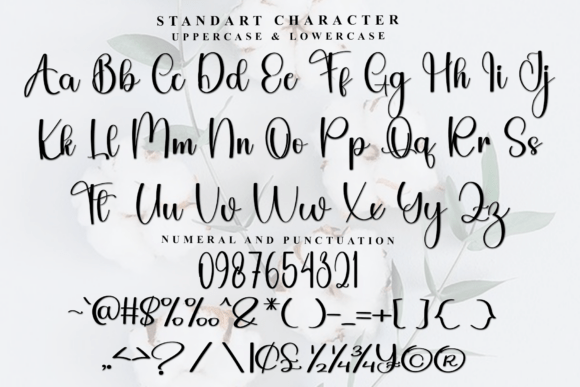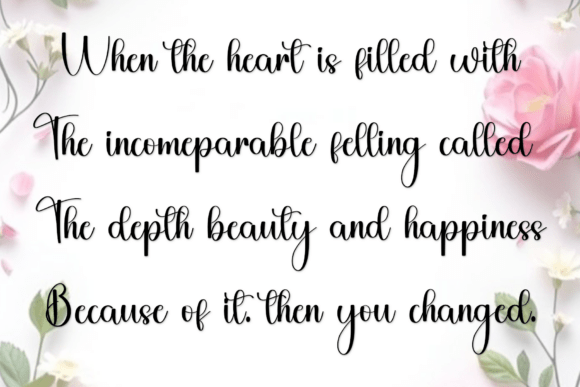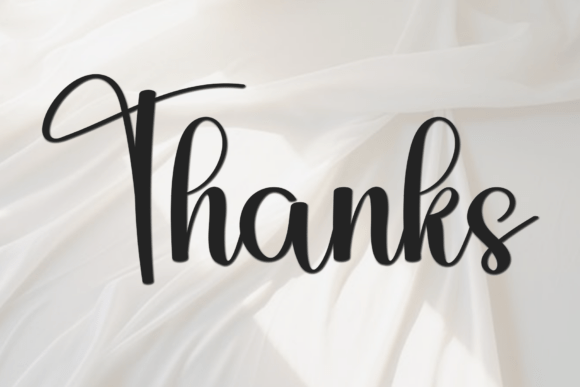
The Font that Brings a Personal Touch
We’ve all been there – staring at a blank page, trying to come up with the perfect design to capture the essence of our creative vision. But sometimes, it’s not about the tools we use, but about the emotions we evoke. And that’s exactly what Grandma Thinking Font is all about – bringing a personal and stylish feel to any project.
This beautiful handwritten script font is more than just a design element; it’s a way to connect with your audience on a deeper level. With its fluid strokes and natural curves, it mimics the warmth and character of real handwriting, making it perfect for branding, wedding invites, quotes, and lifestyle blog graphics. For designers, Grandma Thinking Font is a valuable addition to their toolkit, offering a unique and elegant solution to create heartfelt and visually appealing designs.
Grandma Thinking Font Key Features
- Font Family: A unique, hand-drawn font designed to evoke a sense of nostalgia and whimsy.
- Unique Characteristics: Features a distinctive, handwritten style with subtle imperfections and variations, giving it a personal and charming feel.
Review of Grandma Thinking Font
Overall, I think the Grandma Thinking Font is a sweet and quirky addition to any design project. Here’s what works well:
- ✨ The font’s playful and whimsical feel is perfect for projects that need a touch of nostalgia and warmth.
- ✨ The font’s readability is excellent, even at smaller sizes, making it a great choice for body text.
- ✨ The font’s unique character set and ligatures add a lot of personality to any design.
- ⚠️ The font’s design can be a bit too busy for some projects, making it harder to read or focus on other design elements.
- ⚠️ The font’s lack of a bold weight can make it harder to use in certain contexts, such as headings or titles.
Overall, I think the Grandma Thinking Font is a great choice for designers who want to add a touch of personality to their projects. While it may not be suitable for every project, it’s a great addition to any designer’s toolkit.
Getting the Most Out of Grandma Thinking Font
For best results:
- Use in conjunction with bold or italic text for emphasis.
- Combine with colorful graphics and images for a playful look.
Grandma Thinking Font is perfect for:
- Quirky marketing materials and social media graphics.
- Personalized party invitations and decorations.
- Fun and playful blog posts and articles.
Alternatives to Grandma Thinking Font
Bad Script
Bad Script is a cursive script font that mimics handwriting. It is ideal for use in titles, headings, and quotes that require a personal touch. It compares to Grandma Thinking Font in that both fonts have a casual, handwritten feel, but Bad Script is more uniform and less whimsical.
Great Vibes is a modern, cursive script font that is perfect for use in titles, headings, and body text. It is ideal for designs that require a sense of elegance and sophistication. Great Vibes is more refined and polished than Grandma Thinking Font, making it a better choice for formal designs.
Carolyna Pro is a modern, script font that is designed for use in titles, headings, and body text. It is ideal for designs that require a sense of sophistication and elegance. Carolyna Pro is more versatile than Grandma Thinking Font, making it a better choice for a wide range of designs.
Alex Brush is a handwritten script font that is perfect for use in titles, headings, and body text. It is ideal for designs that require a personal touch and a sense of elegance. Alex Brush is more refined and polished than Grandma Thinking Font, making it a better choice for formal designs.